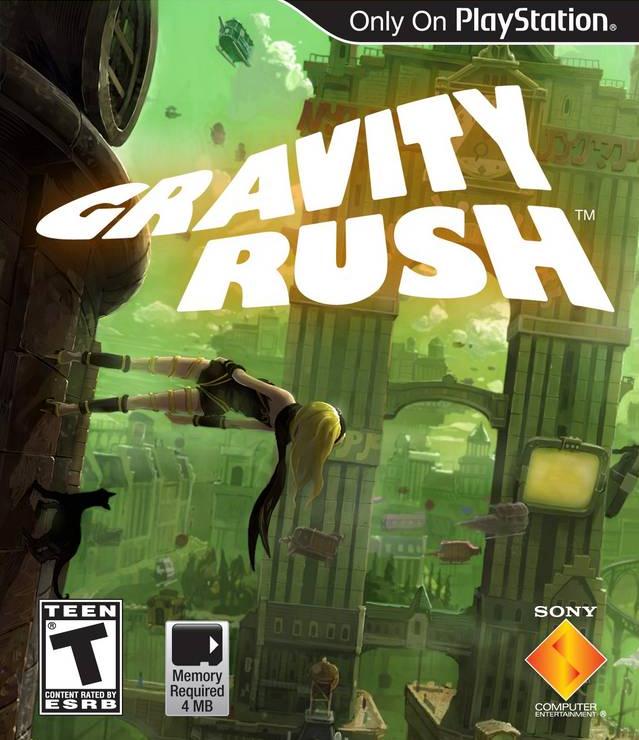
Gravity Rush (video game) Font
The font used for the Gravity Rush game logo in the box art is Gill Sans Ultra Bold, a humanist sans serif designed by Eric Gill in 1936.